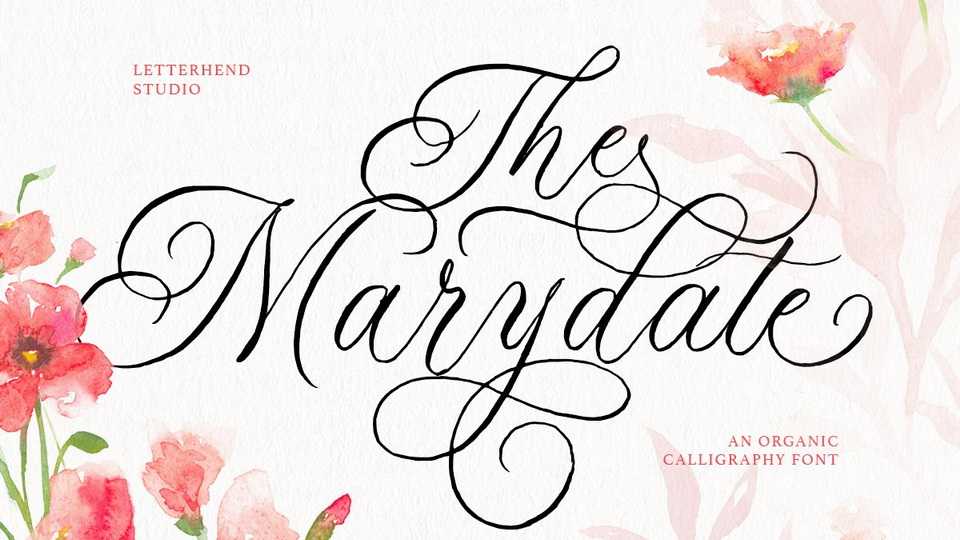
Download Marydate font, a beautiful and classy script typeface based on a manual calligraphy style that uses ink on paper. Marydate can be used on any type of creative design that needs a natural handwritten touch.